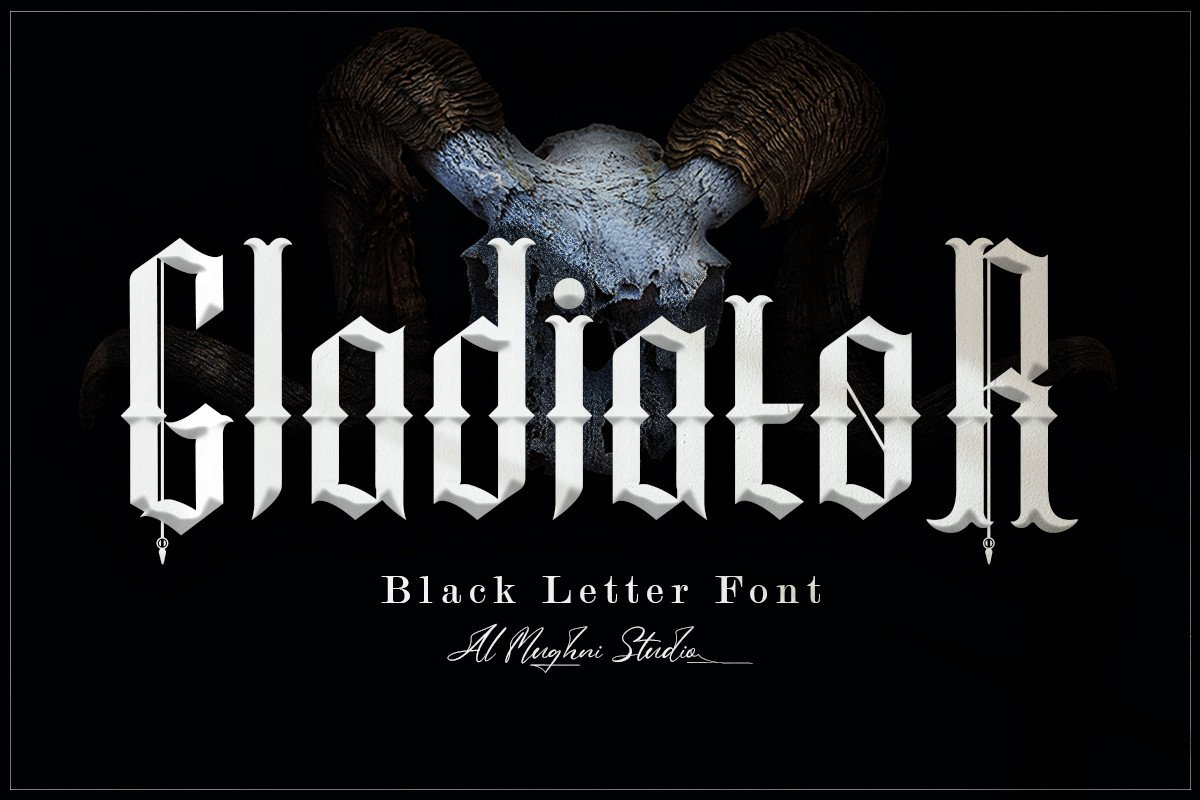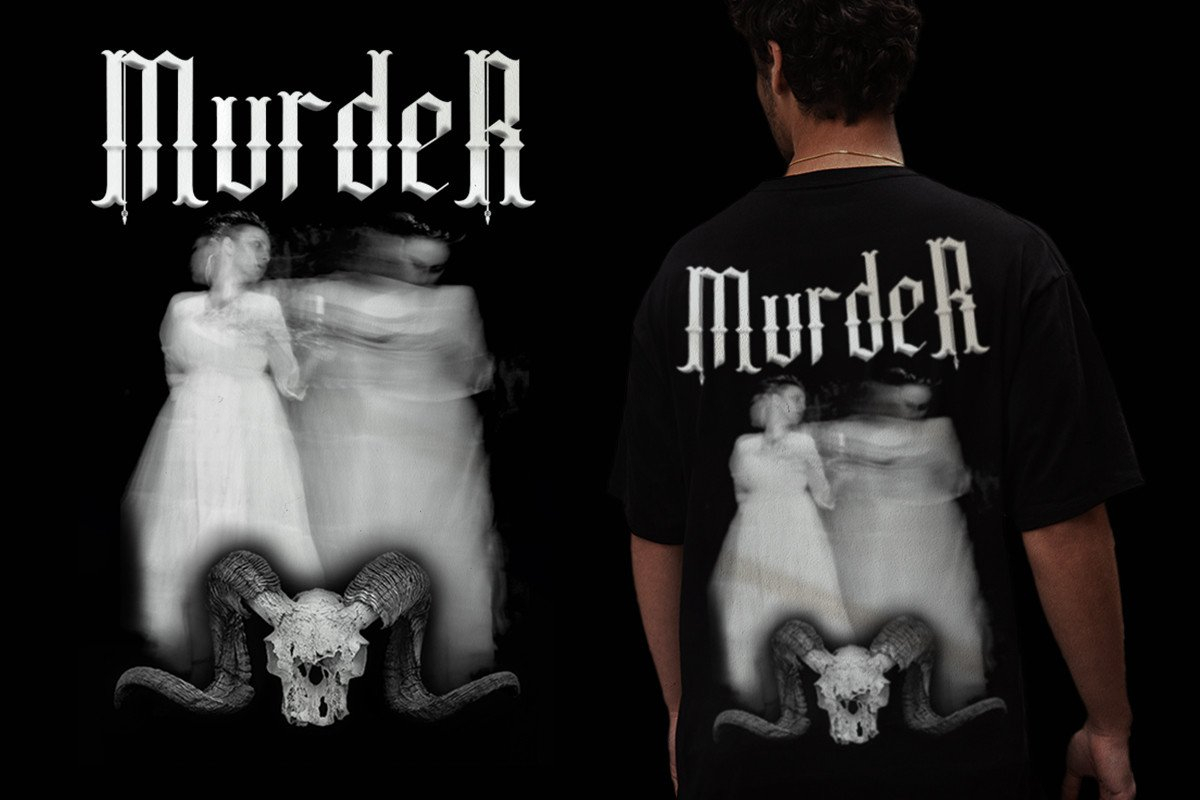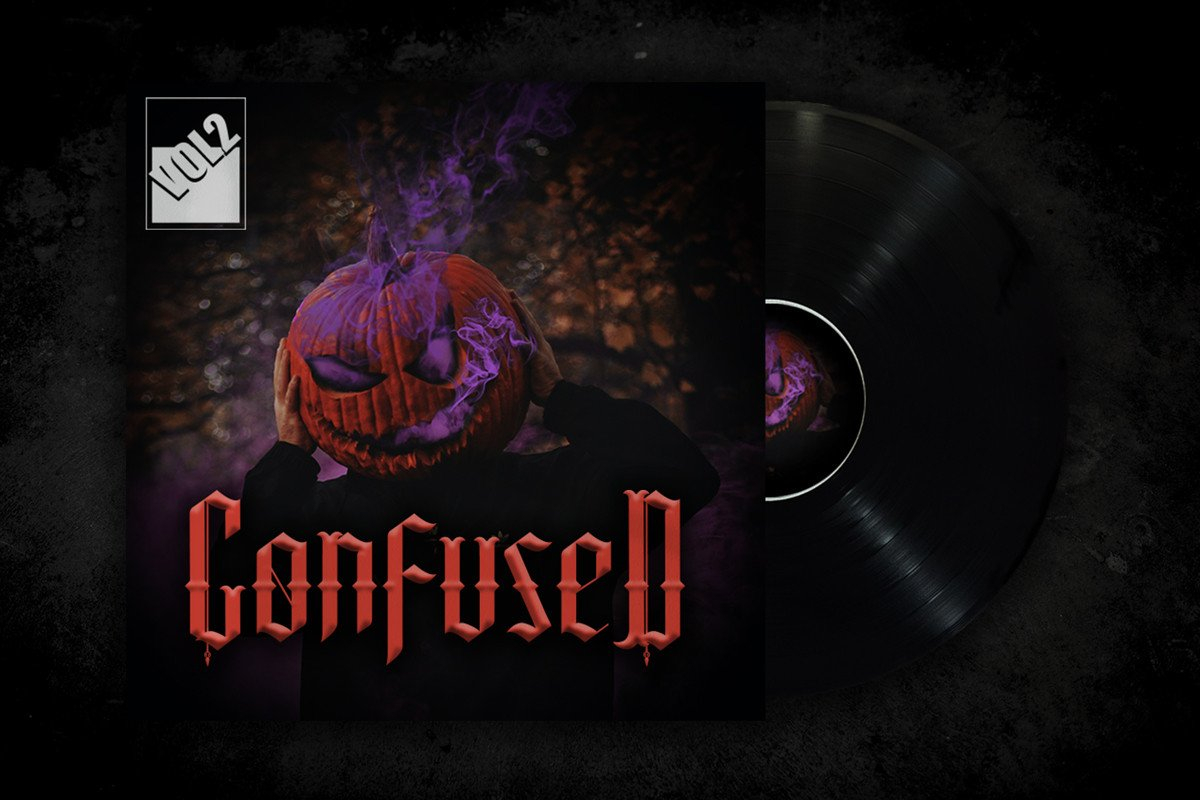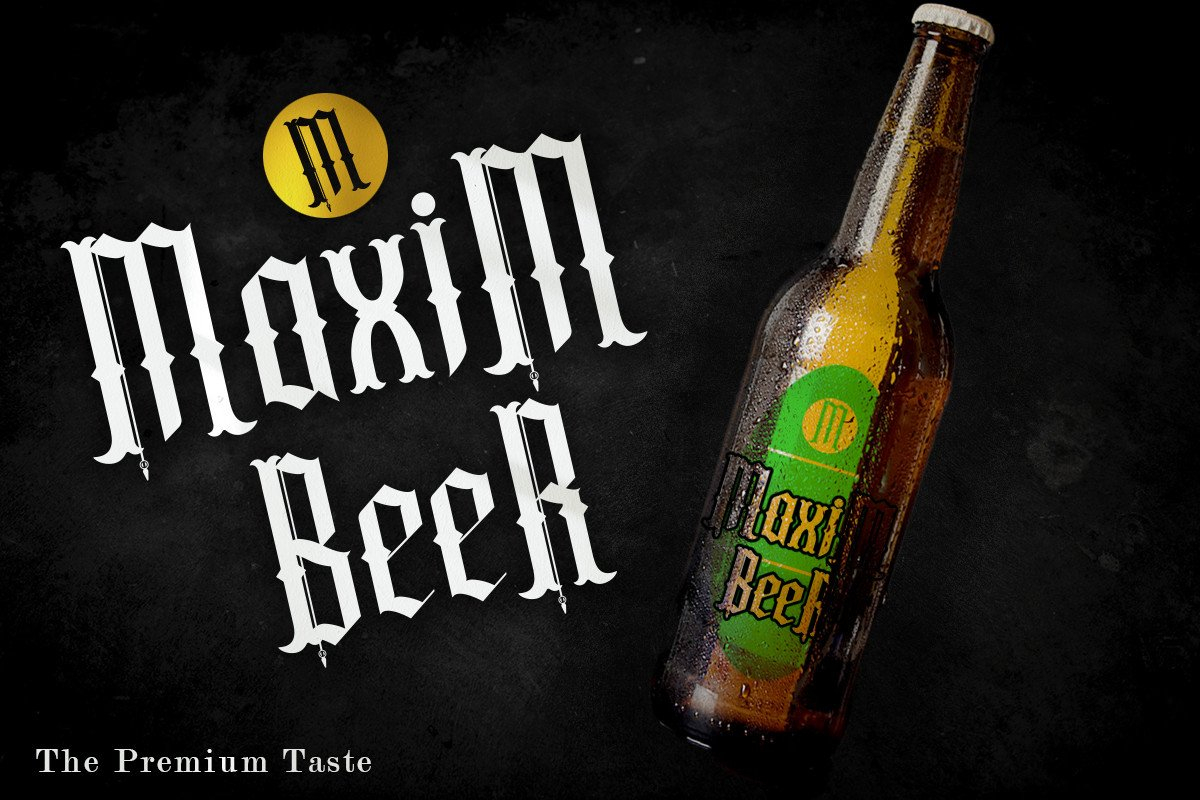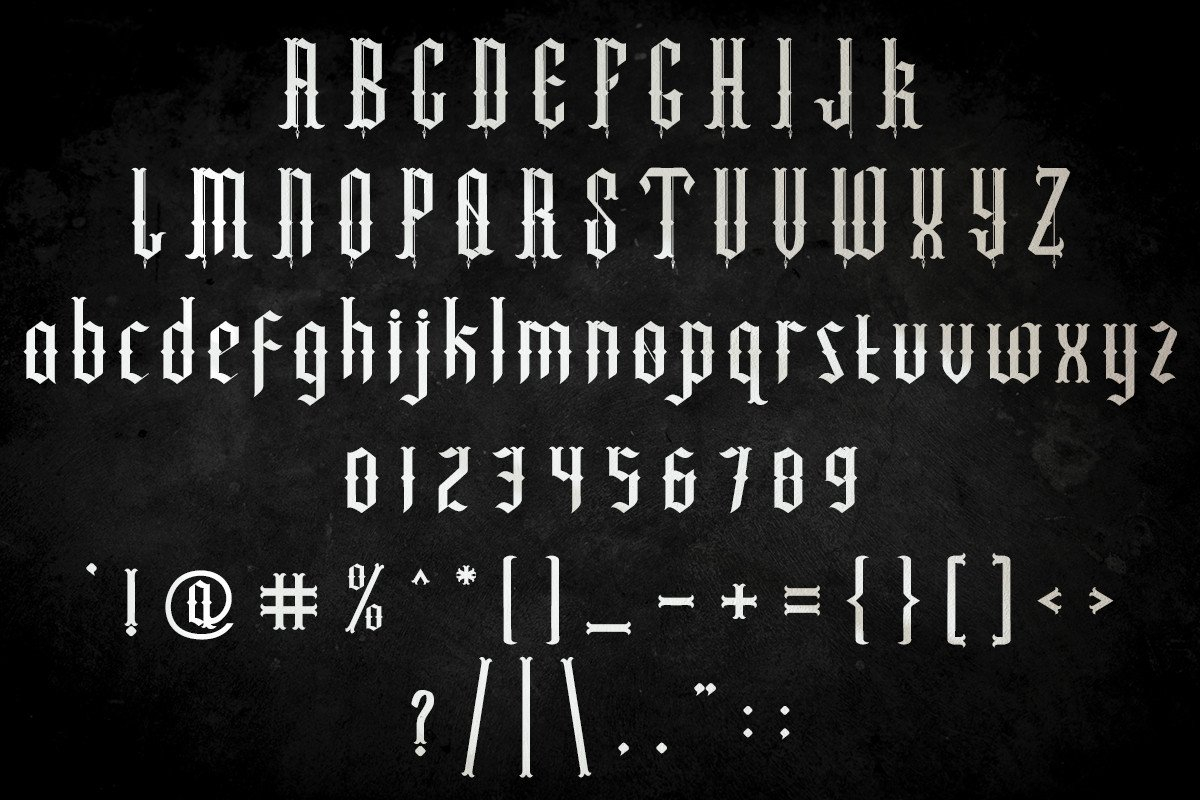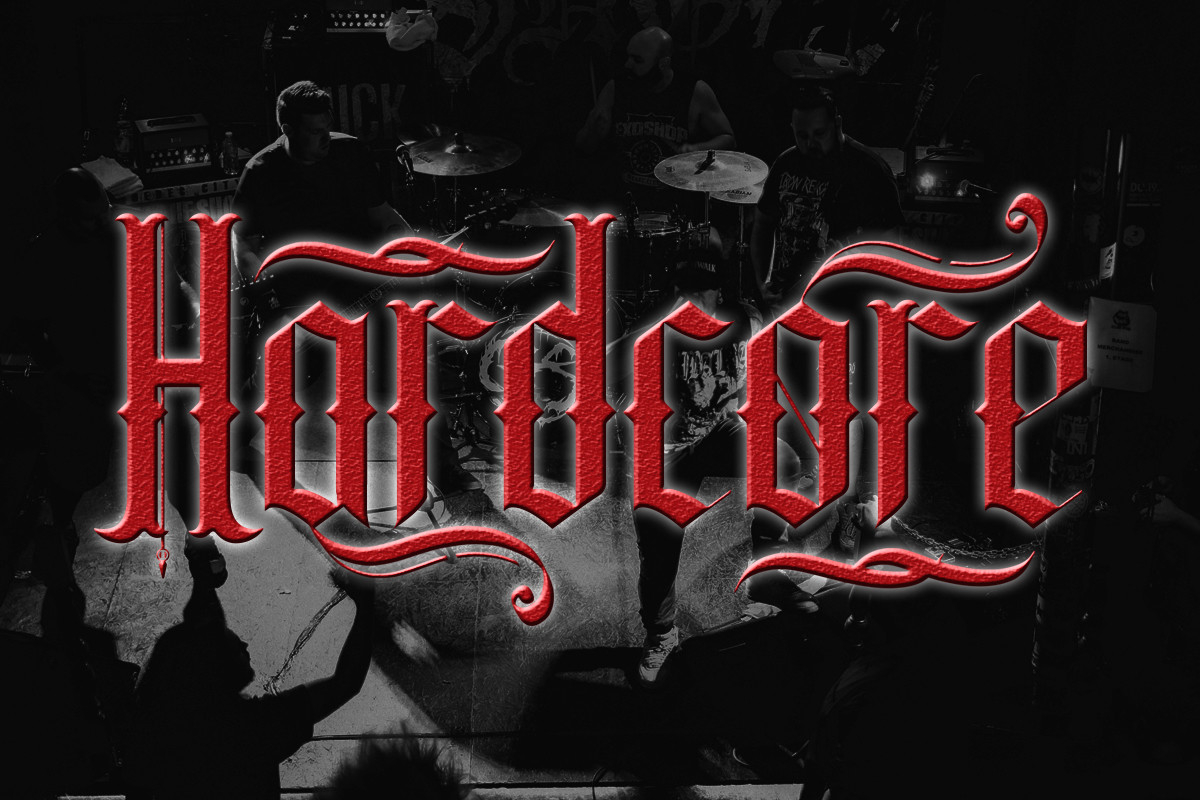
GladiatoR Font
About GladiatoR Font
GladiatoR is a bold and thick lettered blackletter font. Add it confidently to your projects, and you will love the results.